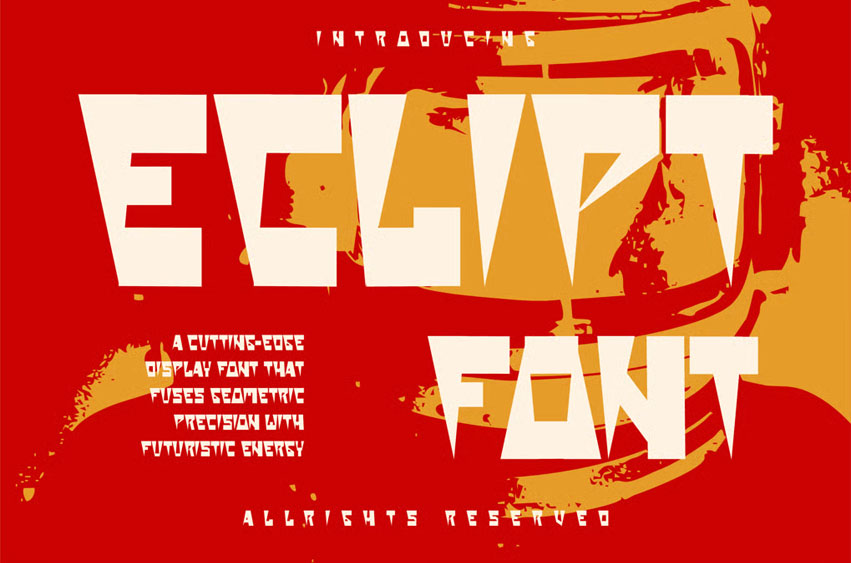
Eclipt Font
Eclipt Font is a cutting-edge display font that fuses geometric precision with futuristic energy. Every curve and angle is engineered for impact — sleek, minimal, and distinctly modern.
Designed for digital spaces, sci-fi interfaces, and high-tech brands, Eclipt embodies motion, innovation, and bold sophistication.